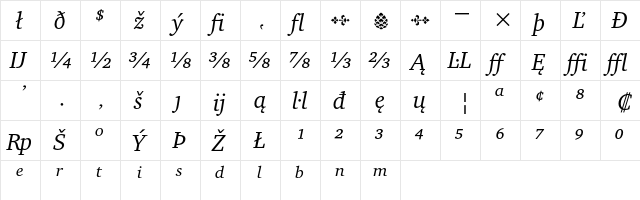
ITC Charter Italic Extension
Design Context for ITC Charter Typeface
ITC Charter is a composed and adaptable typeface that performs quietly and consistently across a wide range of design contexts. Its italic angle brings a sense of urgency and motion to the letterforms.
Pro Tip: Use ITC Charter for emphasis, pull quotes, and subheadings where its slanted energy can add rhythm to the layout.